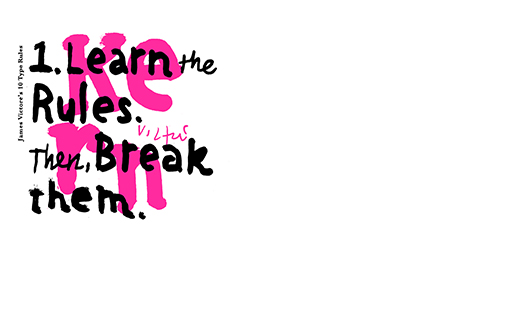
These rules around type are totally worth following
James Victore is a graphic designer, author and artist who continuously strives to make work that is sexy, strong and memorable, while at the same time his projects toe the line between sacred and profane. As it seems he never stops offering us great food for thought, this time by presenting his belief about typography through his own hand-drawn type. The result is very attractive and totally worth following.